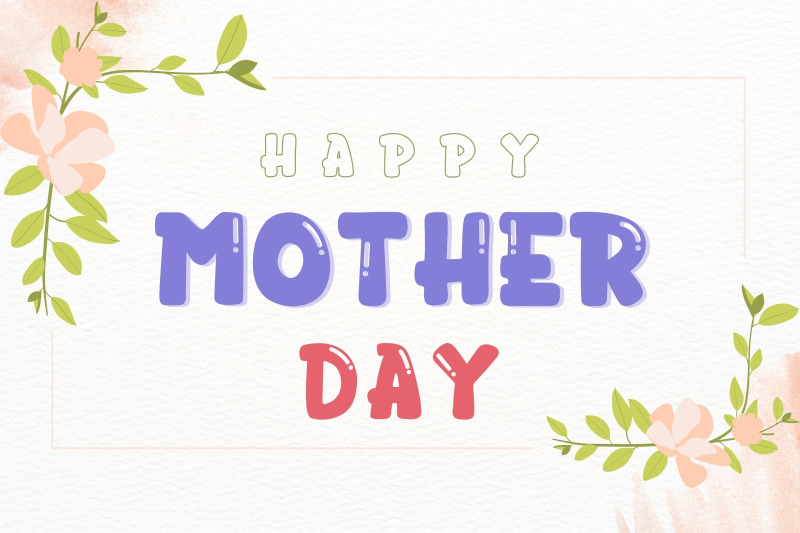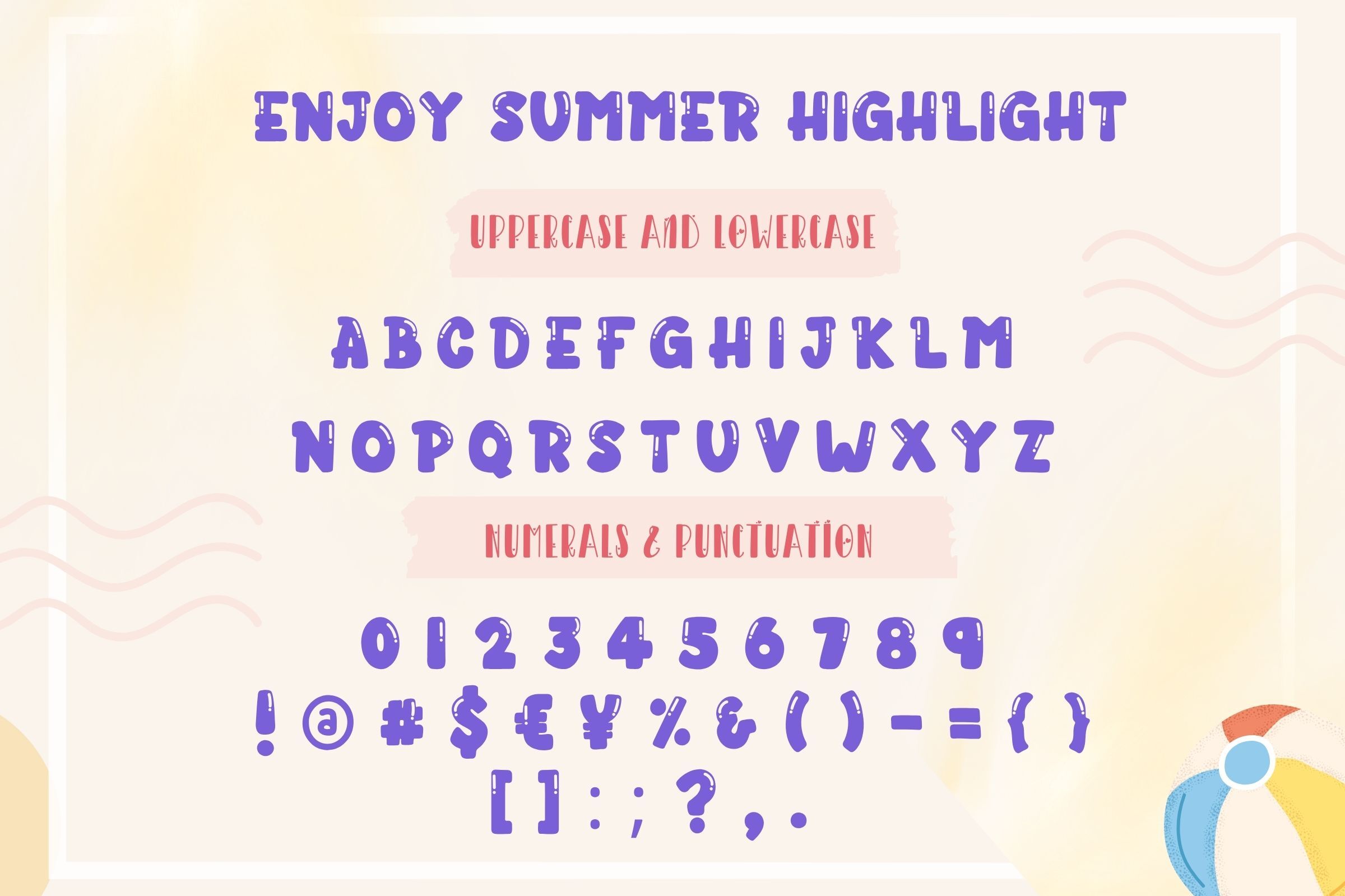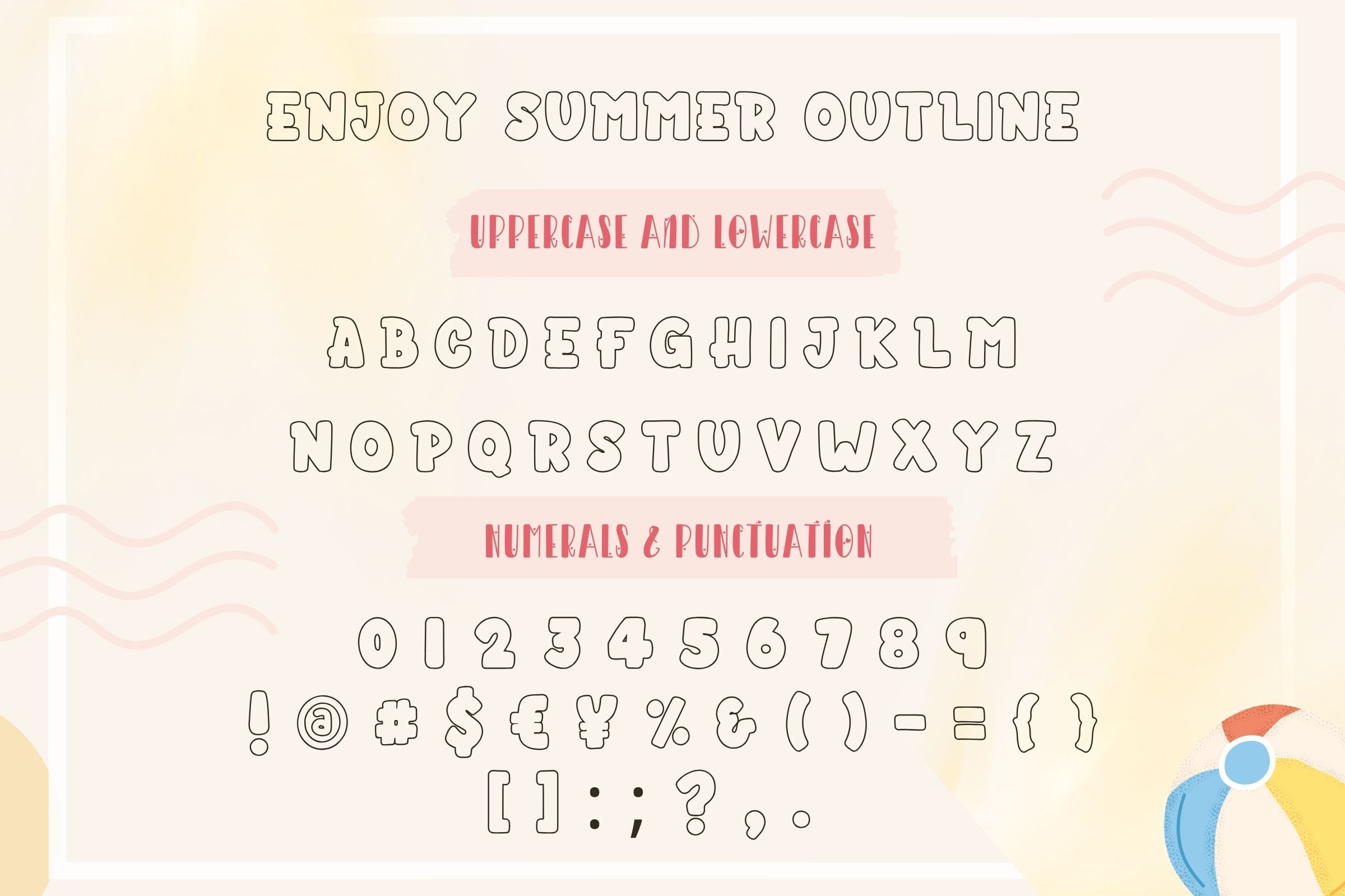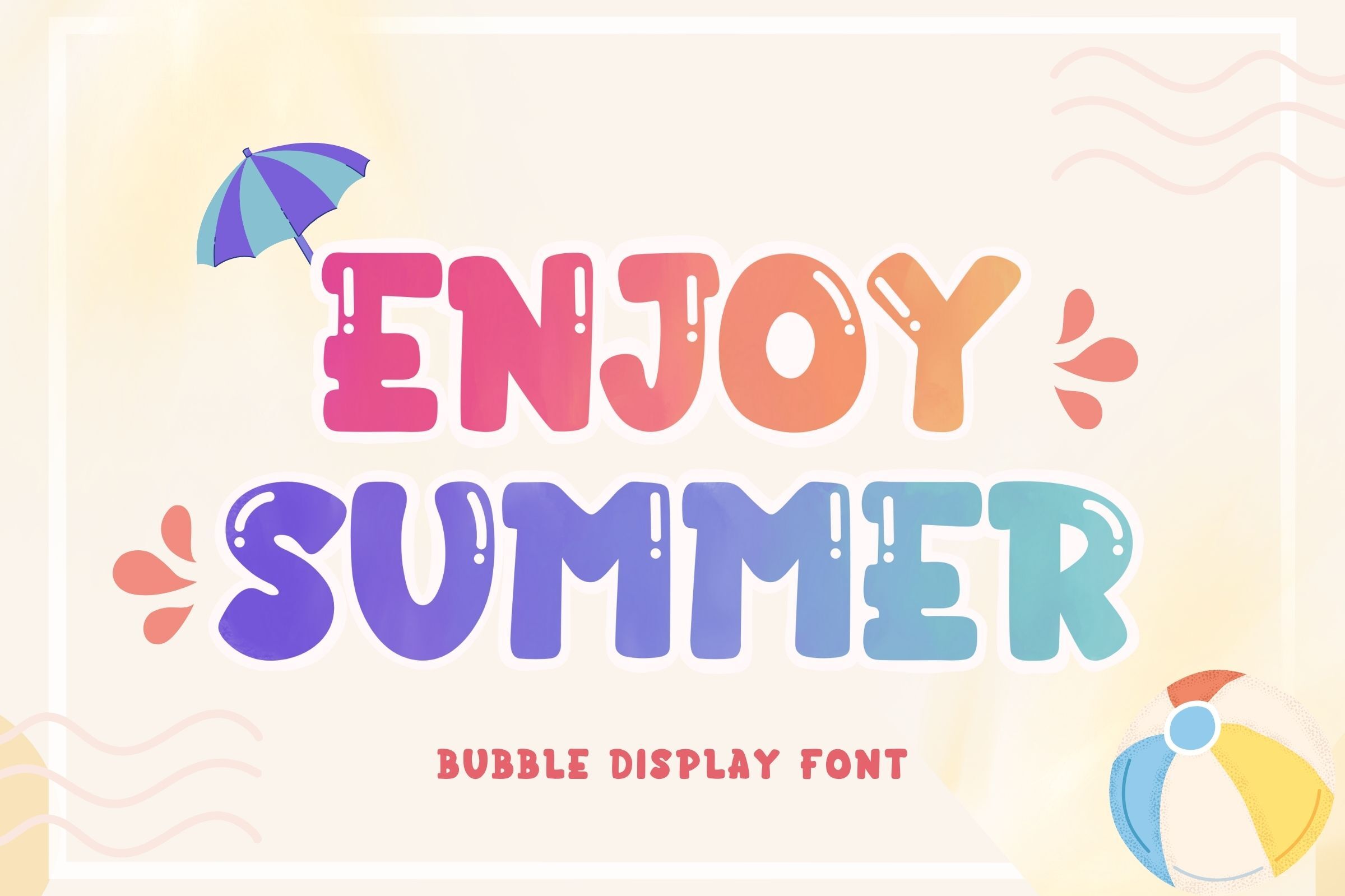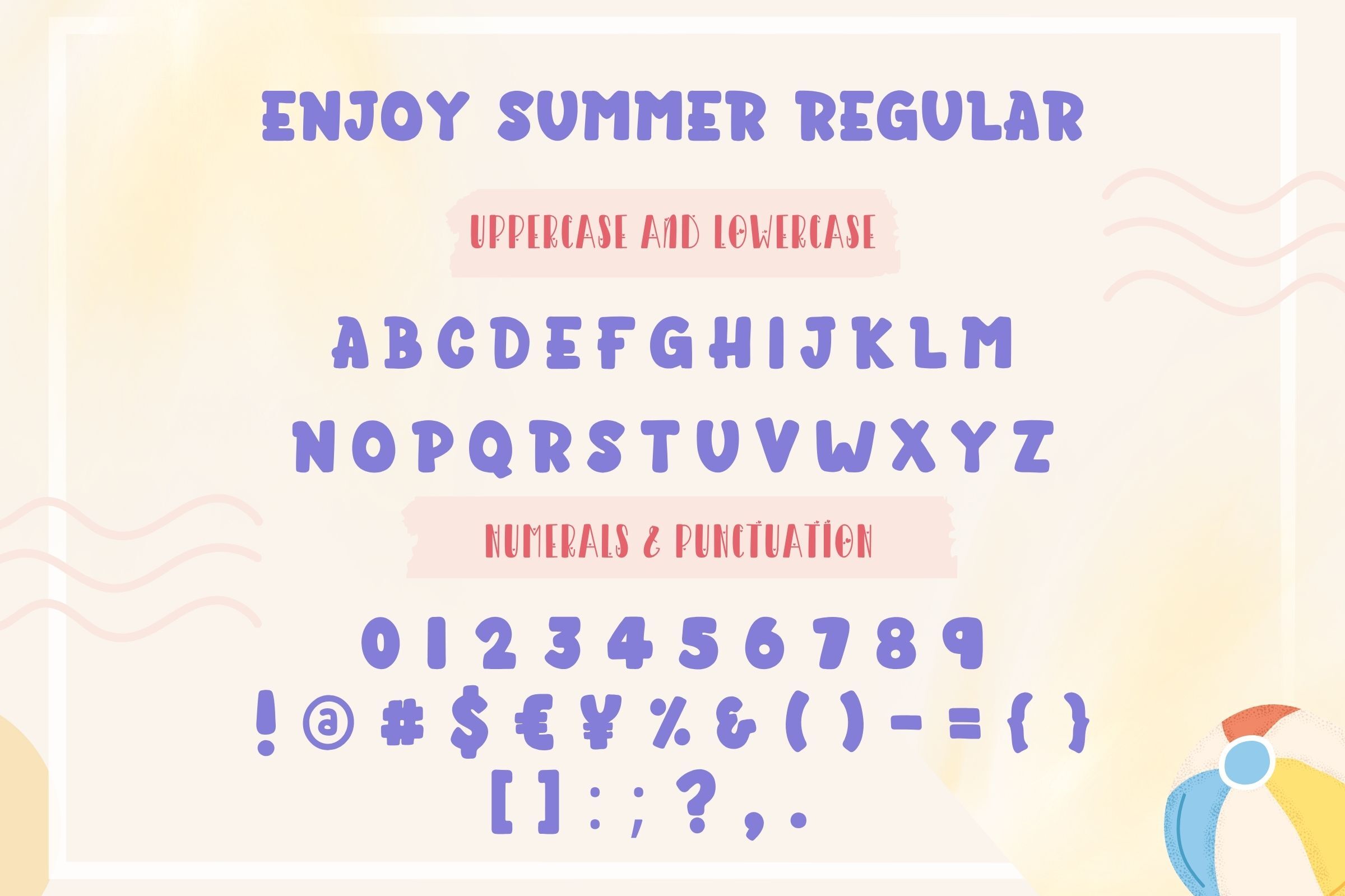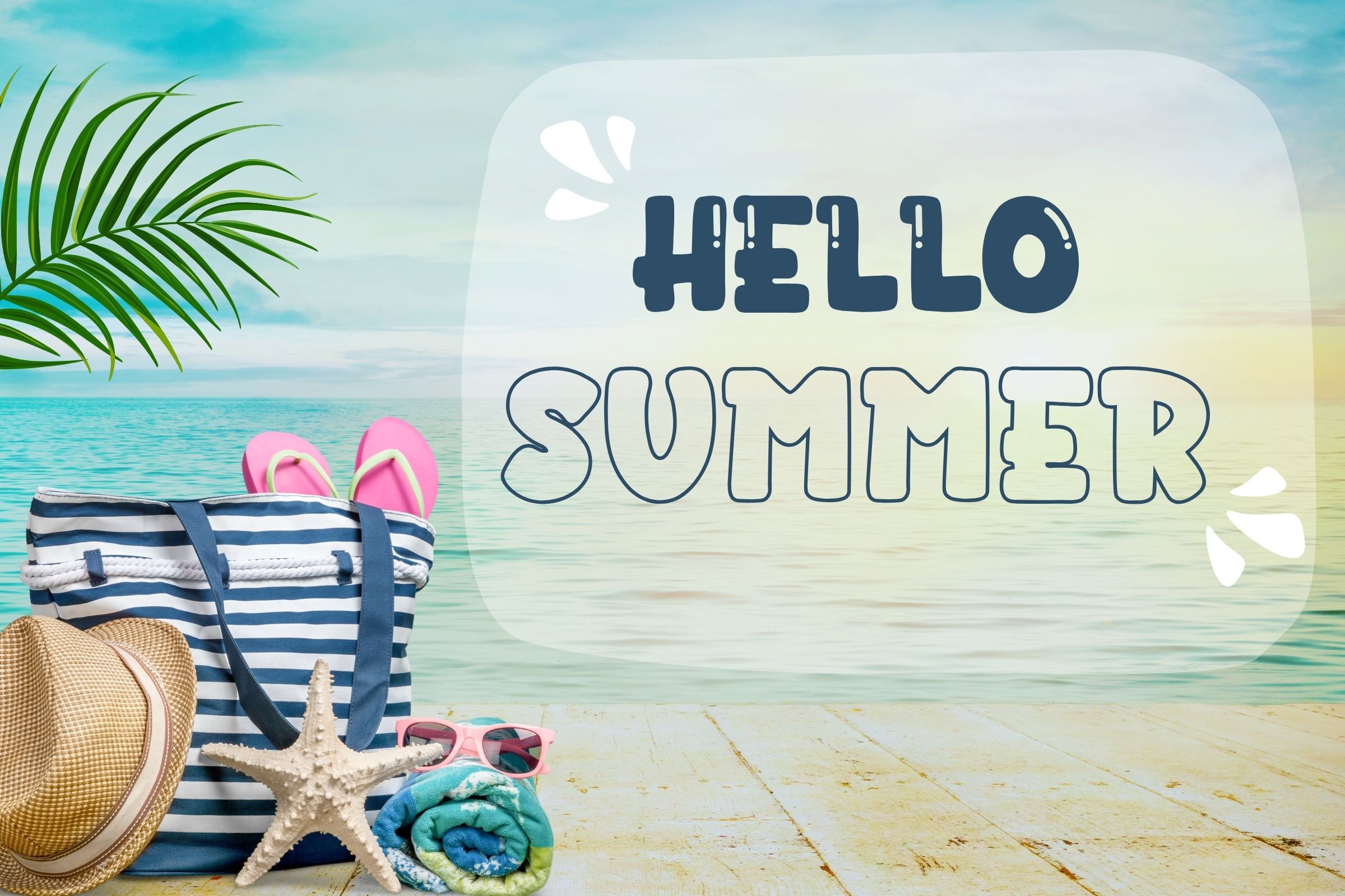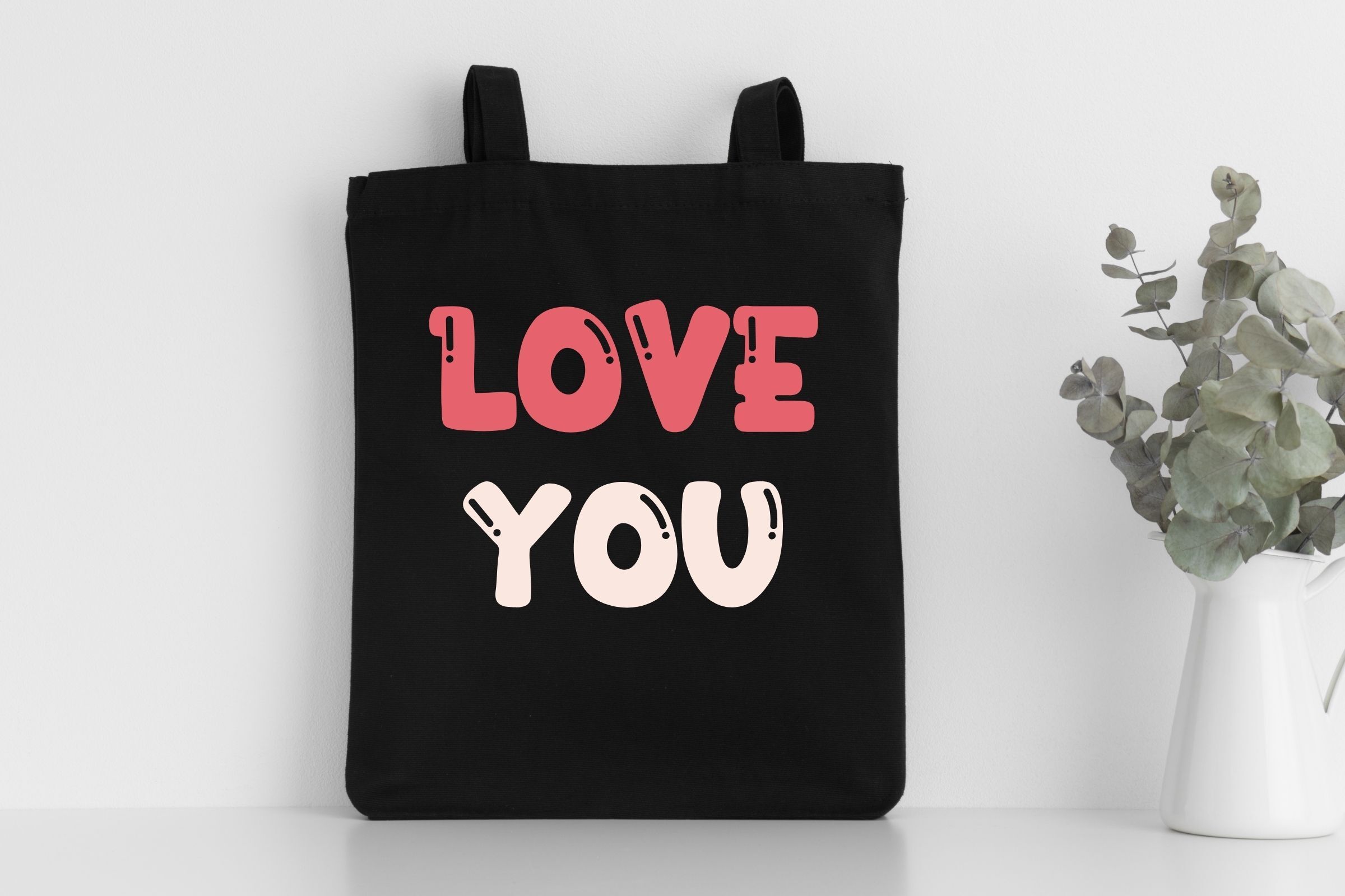
Enjoy Summer - Bubble Font
Enjoy Summer is a cute display font with a casual charm.You enjoy and have fun with your designs. Perfect for creating a wide variety of new designs to match products such as banners, content, mugs, cards, shirts, stationery, social media posts, and more! You will receive 9 Files: (Regular & Outline & Highlight) -ttf file 3 files. -otf file 3 files. -woff file 3 files.